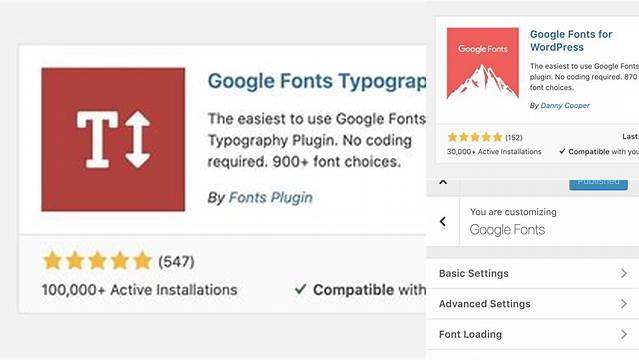
Best Google Fonts Plugin: Enhance Your Website Typography
Introduction to Google Fonts and Typography Plugins
In the world of web design, typography is a crucial element that significantly impacts the user experience. The fonts you choose can make or break the overall aesthetic and readability of your website. Google Fonts provides a vast library of free, open-source fonts that can be easily integrated into any website. To streamline this process, various Google Fonts typography plugins have been developed, making it simpler than ever to enhance your website's typography. Let's dive deeper into why typography matters and how these plugins can help.
Why Typography Matters
Typography is more than just picking a pretty font. It’s about conveying your message effectively and creating a visual hierarchy that guides your visitors through your content. Good typography can enhance readability, improve engagement, and reinforce your brand identity. Conversely, poor typography can lead to a frustrating user experience, causing visitors to leave your site quickly. Think of it this way: the right font can make your content feel professional, trustworthy, and inviting, while the wrong font can make it seem amateurish and difficult to read. For example, imagine reading a serious business proposal written in a playful, cartoonish font – it just wouldn’t convey the right message! That’s why understanding the principles of typography and utilizing tools like Google Fonts plugins are so essential.
Consider these key aspects of typography:
Readability: The primary goal of typography is to ensure that your text is easy to read. This involves choosing fonts that are clear and legible, as well as paying attention to factors like font size, line height, and letter spacing. A readable font ensures that visitors can comfortably consume your content without straining their eyes. Nobody wants to squint and struggle to read through a wall of text, right? Using a Google Fonts plugin can help you preview different fonts and see how they look on your site before committing to one.
Visual Hierarchy: Typography helps to create a visual hierarchy on your page, guiding the reader’s eye to the most important information. Different font sizes, weights, and styles can be used to distinguish headings, subheadings, and body text. This makes it easier for visitors to scan your content and quickly grasp the main points. Think of headlines as signposts that lead your readers through your article – you want them to be clear and attention-grabbing! Typography plugins for Google Fonts often offer features that allow you to easily manage font styles and sizes across your website.
Brand Identity: Your choice of fonts can significantly contribute to your brand identity. Consistent use of specific fonts across your website and marketing materials helps to create a cohesive and recognizable brand. Just like a logo, your fonts become associated with your brand in the minds of your audience. For instance, a modern, sans-serif font might convey a sense of innovation and technology, while a classic serif font might suggest tradition and reliability. Choosing the right fonts through a Google Fonts typography plugin can help you reinforce your brand's personality and values.
Engagement: Well-chosen typography can make your content more engaging and enjoyable to read. The right font can capture the tone and mood of your message, drawing readers in and keeping them interested. Think about how different fonts evoke different emotions – a script font might feel elegant and romantic, while a bold, sans-serif font might feel strong and confident. By selecting fonts that align with your content and brand, you can create a more compelling reading experience. Plugins for Google Fonts can even suggest font pairings that work well together, helping you to create a visually appealing and engaging design.
Benefits of Using Google Fonts
Google Fonts is a fantastic resource for web designers and developers, offering a wide range of benefits:
- Vast Library: Google Fonts boasts an extensive collection of fonts, with thousands of different styles to choose from. Whether you’re looking for a classic serif, a modern sans-serif, or a decorative script, you’re sure to find something that suits your needs. The sheer variety of options can be a bit overwhelming, but that’s where Google Fonts plugins come in handy – they often include features that allow you to filter and preview fonts, making it easier to find the perfect match for your project.
- Easy Integration: Google Fonts are designed to be easily integrated into any website. You can simply add a link to the Google Fonts stylesheet in your HTML code, or use a plugin that handles the integration for you. This simplicity makes it a breeze to experiment with different fonts and update your website’s typography. Plus, because Google Fonts are hosted on Google’s servers, they are delivered quickly and efficiently, ensuring that your website loads fast.
- Web Optimized: All fonts in the Google Fonts library are optimized for web use. This means they are designed to load quickly and display correctly on different devices and browsers. This is crucial for ensuring a smooth and consistent user experience. Slow-loading fonts can negatively impact your website’s performance and frustrate visitors. With Google Fonts, you can be confident that your fonts will look great and load quickly, no matter what device your visitors are using. And with the help of a Google Fonts plugin, you can even fine-tune font loading to further optimize your website’s speed.
What are Google Fonts Typography Plugins?
Google Fonts typography plugins are tools designed to simplify the process of using Google Fonts on your website. They offer a user-friendly interface that allows you to browse, select, and implement fonts without having to write any code. These plugins are particularly useful for those who are not comfortable with coding or who simply want to save time and effort. They take the hassle out of font management, allowing you to focus on other aspects of your website design.
These plugins act as a bridge between the Google Fonts library and your website, making it easy to access and use a wide range of fonts. Instead of manually adding code snippets to your website’s header, you can use a plugin to select your desired fonts and apply them to different elements of your site, such as headings, body text, and navigation menus. This can save you a significant amount of time and effort, especially if you plan to use multiple fonts across your website. Plus, many Google Fonts plugins offer additional features, such as font previews, style customization options, and performance optimization tools.
In essence, these plugins can be a game-changer for your website’s typography, making it easier than ever to create a visually appealing and engaging design. They empower you to experiment with different font combinations, fine-tune your typography, and ensure that your website looks its best on all devices. So, if you’re looking to elevate your website’s design and enhance the user experience, a Google Fonts typography plugin is definitely worth considering.
Key Features to Look for in a Google Fonts Plugin
When choosing a Google Fonts plugin, it’s essential to consider the features that will best meet your needs. Not all plugins are created equal, and some offer a more comprehensive set of tools than others. To help you make an informed decision, let’s explore some key features you should look for in a Google Fonts plugin:
1. Extensive Font Library Access:
The primary purpose of a Google Fonts plugin is to provide easy access to the Google Fonts library. Therefore, the plugin should offer a seamless way to browse and select from the thousands of fonts available. This includes features like font previews, search functionality, and categorization options. You want a plugin that allows you to quickly and easily find the perfect font for your project. Imagine trying to sift through thousands of fonts without proper filtering and preview options – it would be like searching for a needle in a haystack! A good plugin will make the process intuitive and efficient, allowing you to focus on the creative aspects of typography.
Look for plugins that offer:
- Real-time Font Previews: The ability to see how a font looks on your website before applying it. This is crucial for ensuring that the font complements your design and is readable in different contexts. Real-time previews allow you to experiment with different fonts and see the results instantly, without having to make permanent changes to your site. This can save you a lot of time and prevent potential design mishaps. With a Google Fonts plugin that offers real-time previews, you can be confident that you’re making the right choice for your typography.
- Advanced Search and Filtering: Features to filter fonts by categories (serif, sans-serif, display, handwriting, etc.), styles (bold, italic), and popularity. This helps you narrow down your options and find fonts that match your specific criteria. For example, if you’re looking for a modern, sans-serif font for your website’s headings, you can filter the font library accordingly. Advanced search and filtering options make it much easier to find the perfect font for your project, saving you time and effort. A Google Fonts plugin with these features will streamline your font selection process and help you create a visually cohesive design.
- Font Pairings: Suggestions for font combinations that work well together. This is especially helpful for those who are not typography experts. Choosing the right font pairings can be tricky, as some fonts simply don’t complement each other. A Google Fonts plugin that suggests font pairings can take the guesswork out of the process and help you create a harmonious and visually appealing design. These suggestions are often based on established typographic principles, ensuring that your font choices are both aesthetically pleasing and highly readable.
2. Customization Options:
A Google Fonts plugin should offer robust customization options to tailor the fonts to your specific needs. This includes adjusting font size, weight, style, and color. The ability to fine-tune these settings is essential for creating a visually appealing and consistent design across your website. After all, the perfect font is only perfect if it’s used correctly! Customization options allow you to make subtle adjustments that can have a big impact on the overall look and feel of your website.
Key customization features include:
- Font Weight and Style: The ability to choose from different font weights (e.g., light, regular, bold) and styles (e.g., italic, condensed). This allows you to create visual hierarchy and emphasize important elements on your page. For example, you might use a bold font weight for headings to make them stand out, while using a regular font weight for body text to ensure readability. A Google Fonts plugin that offers a wide range of font weights and styles gives you the flexibility to create a dynamic and engaging design.
- Font Size and Line Height: Options to adjust the font size and line height to optimize readability. The right font size and line height can make a significant difference in how easy it is to read your content. If the font is too small or the line height is too tight, your text can appear cramped and difficult to read. On the other hand, if the font is too large or the line height is too wide, your text can look disjointed and unprofessional. A Google Fonts plugin with adjustable font size and line height settings allows you to fine-tune the typography to create a comfortable reading experience for your visitors.
- Text Color and Letter Spacing: Controls to adjust the text color and letter spacing for optimal visual appeal. The color of your text can have a significant impact on the overall look and feel of your website. Choosing the right text color can make your content more readable and visually appealing. Similarly, adjusting the letter spacing can improve readability and create a more polished look. A Google Fonts plugin that offers these customization options gives you the tools you need to create a visually stunning and highly readable design.
3. Ease of Use:
The best Google Fonts plugins are those that are easy to use, even for beginners. The interface should be intuitive and straightforward, allowing you to quickly find and apply fonts without any hassle. Nobody wants to spend hours trying to figure out how to use a plugin! A user-friendly interface makes the process of selecting and customizing fonts a breeze, allowing you to focus on the creative aspects of your design.
Look for plugins with:
- Intuitive Interface: A clean and well-organized interface that is easy to navigate. The plugin should have clear labels and instructions, making it easy to understand how to use its various features. An intuitive interface can save you a lot of time and frustration, especially if you’re new to typography plugins. A Google Fonts plugin with a user-friendly interface will make the process of selecting and customizing fonts a pleasant experience.
- Drag-and-Drop Functionality: The ability to drag and drop fonts to different elements on your website. This makes it easy to apply fonts to specific areas of your site without having to write any code. Drag-and-drop functionality is a visual and intuitive way to customize your website’s typography. It allows you to see the changes in real-time and make adjustments as needed. A Google Fonts plugin with drag-and-drop functionality can significantly speed up your design workflow.
- Integration with Page Builders: Compatibility with popular page builders like Elementor, Beaver Builder, and Divi. This allows you to easily integrate Google Fonts into your existing workflow. Page builders are powerful tools that allow you to create custom website layouts without writing any code. A Google Fonts plugin that integrates seamlessly with your page builder will make it even easier to customize your website’s typography. This integration can save you a lot of time and effort, allowing you to create a professional-looking website with ease.
4. Performance Optimization:
Using too many fonts or improperly loading fonts can slow down your website. A good Google Fonts plugin should offer features to optimize font loading and ensure that your website remains fast and responsive. Website speed is crucial for user experience and SEO, so it’s essential to choose a plugin that prioritizes performance. Slow-loading fonts can frustrate visitors and negatively impact your search engine rankings. A Google Fonts plugin with performance optimization features can help you avoid these issues.
Key performance features include:
- Font Subsetting: The ability to load only the character sets needed for your website’s language. This reduces the file size of the font and speeds up loading times. Font files can be quite large, especially for fonts with multiple styles and weights. Loading only the necessary character sets can significantly reduce the file size and improve your website’s performance. A Google Fonts plugin with font subsetting capabilities can help you optimize your typography without sacrificing website speed.
- Asynchronous Loading: Loading fonts in the background so they don’t block the rendering of other content. This ensures that your website loads quickly, even if the fonts take a little longer to load. Asynchronous loading prevents fonts from becoming a bottleneck in your website’s loading process. This means that your visitors will be able to see and interact with your content more quickly, even if the fonts are still loading in the background. A Google Fonts plugin with asynchronous loading can improve your website’s perceived performance and enhance the user experience.
- Font Caching: Storing fonts locally so they don’t have to be downloaded every time a page is loaded. This further improves loading times and reduces server load. Caching is a common technique for improving website performance. By storing fonts locally, you can reduce the number of requests to the Google Fonts server and speed up your website’s loading time. A Google Fonts plugin with font caching capabilities can help you ensure that your website loads quickly and efficiently, even for visitors who are accessing it for the first time.
By considering these key features, you can choose a Google Fonts plugin that meets your needs and helps you create a visually stunning and highly readable website. Remember, the right plugin can make a big difference in your website’s overall design and user experience. So, take the time to research your options and choose a plugin that offers the features and functionality you need to succeed.
Top Google Fonts Plugins for WordPress
WordPress, being the most popular content management system (CMS), has a plethora of Google Fonts plugins available. These plugins cater to different needs and preferences, offering a range of features and functionalities. To help you navigate this vast landscape, let’s take a look at some of the top Google Fonts plugins for WordPress:
1. Easy Google Fonts:
Easy Google Fonts is one of the most popular and user-friendly Google Fonts plugins available for WordPress. It boasts over 700,000 active installations and a 4.5-star rating, making it a trusted choice for many website owners. This plugin simplifies the process of adding and customizing Google Fonts on your WordPress site, even if you don’t have any coding experience. Its intuitive interface and robust feature set make it a great option for both beginners and experienced users.
Key Features:
- Seamless Integration: Easy Google Fonts seamlessly integrates with the WordPress Customizer, allowing you to preview font changes in real-time. This makes it incredibly easy to experiment with different fonts and see how they look on your website before making them live. The Customizer integration also ensures that the plugin works well with most WordPress themes.
- Font Control: The plugin gives you complete control over your website’s typography, allowing you to assign fonts to different elements such as headings, body text, and menus. This makes it easy to create a consistent and visually appealing design across your entire website. You can also adjust font sizes, weights, and styles to further customize your typography.
- Automatic Google Fonts Updates: Easy Google Fonts automatically updates the Google Fonts library, ensuring that you always have access to the latest fonts. This is a convenient feature that saves you the hassle of manually updating the font library yourself. You can be confident that you’re using the most up-to-date fonts and taking advantage of any new additions to the Google Fonts collection.
- Theme Compatibility: The plugin is designed to be compatible with most WordPress themes, ensuring a smooth and hassle-free experience. However, it’s always a good idea to test the plugin with your specific theme to ensure that everything works as expected. In most cases, Easy Google Fonts will work seamlessly with your theme, allowing you to easily customize your website’s typography.
Why Choose Easy Google Fonts?
Easy Google Fonts is an excellent choice for those who want a simple and straightforward way to add Google Fonts to their WordPress website. Its user-friendly interface, real-time previews, and automatic updates make it a convenient and reliable option. If you’re looking for a plugin that’s easy to use and offers a comprehensive set of features, Easy Google Fonts is definitely worth considering.
2. Google Fonts Typography:
Google Fonts Typography is another popular Google Fonts plugin for WordPress, known for its extensive customization options and focus on performance. With over 200,000 active installations and a 4-star rating, this plugin has earned a reputation for being a powerful and versatile tool. It offers a wide range of features that allow you to fine-tune your website’s typography and optimize it for performance.
Key Features:
- Advanced Font Controls: Google Fonts Typography offers advanced font controls, allowing you to customize font size, weight, style, letter spacing, line height, and more. This level of customization gives you complete control over your website’s typography and allows you to create a truly unique design. You can adjust every aspect of your fonts to perfectly match your brand and aesthetic.
- Font Subsetting: The plugin supports font subsetting, which allows you to load only the character sets needed for your website’s language. This reduces the file size of the font and speeds up loading times. Font subsetting is a crucial feature for optimizing website performance, especially if you’re using fonts with a large character set.
- Performance Optimization: Google Fonts Typography is designed with performance in mind, offering features like asynchronous font loading and caching to ensure that your website loads quickly. These features help to prevent fonts from becoming a bottleneck in your website’s loading process, ensuring a smooth user experience.
- Developer-Friendly: The plugin is developer-friendly, with hooks and filters that allow you to customize its functionality. This makes it a great option for developers who want to extend the plugin’s features or integrate it with other plugins and themes. If you’re a developer, you’ll appreciate the flexibility and extensibility of Google Fonts Typography.
Why Choose Google Fonts Typography?
Google Fonts Typography is a great choice for those who want a powerful and versatile Google Fonts plugin with advanced customization options and a focus on performance. If you’re looking for a plugin that gives you complete control over your website’s typography and helps you optimize it for speed, Google Fonts Typography is an excellent option.
3. Fonts Plugin | Google Fonts, Custom Fonts, Typography:
The Fonts Plugin | Google Fonts, Custom Fonts, Typography by StylemixThemes is a comprehensive typography solution for WordPress. This plugin goes beyond just Google Fonts, allowing you to upload custom fonts and manage your entire font library in one place. With over 80,000 active installations and a 4.5-star rating, this plugin is a popular choice for those who need a flexible and feature-rich typography solution.
Key Features:
- Google Fonts Integration: The plugin provides seamless integration with the Google Fonts library, allowing you to easily browse and select from thousands of fonts.
- Custom Font Uploads: You can upload your own custom fonts in various formats (TTF, WOFF, WOFF2) and use them on your website. This is a great feature for those who want to use unique fonts that are not available in the Google Fonts library.
- Font Management: The plugin offers a centralized font management system, allowing you to organize and manage all of your fonts in one place. This makes it easy to keep track of your fonts and ensure that they are used consistently across your website.
- Typography Controls: The plugin provides extensive typography controls, allowing you to customize font size, weight, style, color, letter spacing, line height, and more.
- Elementor Integration: The plugin seamlessly integrates with the Elementor page builder, allowing you to easily apply fonts to different elements on your page. This integration makes it easy to create custom designs with your favorite fonts.
Why Choose Fonts Plugin | Google Fonts, Custom Fonts, Typography?
This plugin is an excellent choice for those who need a comprehensive typography solution that goes beyond just Google Fonts. If you want to use custom fonts, manage your entire font library in one place, and have extensive typography controls, this plugin is a great option. Its Elementor integration makes it particularly appealing for those who use the Elementor page builder.
4. Use Any Font:
Use Any Font is a unique Google Fonts plugin that focuses on allowing you to use any font you want on your website, regardless of its source. This plugin is particularly useful if you have fonts that are not available in the Google Fonts library or if you want to use custom fonts from other sources. With over 100,000 active installations and a 4-star rating, this plugin has proven to be a reliable and effective solution for using custom fonts on WordPress.
Key Features:
- Custom Font Uploads: Use Any Font allows you to upload custom fonts in various formats (TTF, OTF, WOFF) and use them on your website. This gives you the flexibility to use any font you want, regardless of its source.
- Font Conversion: The plugin automatically converts your fonts to web-friendly formats, ensuring that they display correctly on all browsers and devices. This is a crucial feature for ensuring a consistent user experience across different platforms.
- Simple Interface: Use Any Font has a simple and intuitive interface, making it easy to upload and manage your custom fonts. Even if you’re not a technical expert, you’ll be able to use this plugin with ease.
- Performance Optimized: The plugin is designed to be performance-optimized, ensuring that your custom fonts load quickly and don’t slow down your website. This is essential for maintaining a fast and responsive website.
Why Choose Use Any Font?
Use Any Font is a great choice for those who want to use custom fonts on their WordPress website. If you have fonts that are not available in the Google Fonts library or if you simply prefer to use custom fonts, this plugin is an excellent option. Its simple interface, automatic font conversion, and performance optimization make it a reliable and effective solution.
Choosing the right Google Fonts plugin for your WordPress website depends on your specific needs and preferences. Consider the features that are most important to you, such as ease of use, customization options, performance optimization, and integration with other plugins and themes. By carefully evaluating your options, you can find the perfect plugin to help you create a visually stunning and highly readable website.
How to Implement Google Fonts Using a Plugin
Implementing Google Fonts using a plugin is a straightforward process that can significantly enhance your website's typography without requiring any coding knowledge. Let's walk through the steps involved in using a Google Fonts plugin to elevate your website's design.
Step 1: Install and Activate a Google Fonts Plugin
The first step is to choose a Google Fonts plugin that suits your needs and install it on your WordPress website. As we discussed earlier, there are several excellent options available, such as Easy Google Fonts, Google Fonts Typography, Fonts Plugin | Google Fonts, Custom Fonts, Typography, and Use Any Font. For this example, we'll use Easy Google Fonts due to its user-friendly interface and seamless integration with the WordPress Customizer.
- Navigate to the Plugins Section: In your WordPress dashboard, go to "Plugins" and click on "Add New". This will take you to the WordPress Plugin Directory, where you can search for and install new plugins.
- Search for the Plugin: In the search bar, type "Easy Google Fonts" and press Enter. The plugin should appear in the search results. Make sure it's the one by Titanium Themes.
- Install the Plugin: Click the "Install Now" button next to the Easy Google Fonts plugin. WordPress will download and install the plugin on your website. This process usually takes just a few seconds.
- Activate the Plugin: Once the plugin is installed, the "Install Now" button will change to an "Activate" button. Click the "Activate" button to activate the plugin. Activating the plugin makes it available for use on your website. A successful activation will usually redirect you to the plugins page where you can see the plugin listed as active.
Step 2: Access the WordPress Customizer
The next step is to access the WordPress Customizer, which is where you'll configure the plugin and apply your chosen Google Fonts to your website.
- Go to Appearance: In your WordPress dashboard, hover over "Appearance" in the left-hand menu. This will reveal a submenu.
- Click on Customize: In the submenu, click on "Customize". This will open the WordPress Customizer, which allows you to make changes to your website's appearance in real-time. The WordPress Customizer is a powerful tool that allows you to preview changes to your website before making them live. This is especially useful when working with typography, as you can see how different fonts look on your site before committing to a particular style.
Step 3: Configure the Plugin Settings
Once you're in the WordPress Customizer, you'll need to find the settings for the Google Fonts plugin you've installed. In the case of Easy Google Fonts, the settings are typically located in the "Typography" section of the Customizer.
- Locate the Typography Section: In the WordPress Customizer, look for a section labeled "Typography" or something similar. The exact label may vary depending on your theme, but it’s usually easy to spot.
- Access the Plugin Settings: Click on the "Typography" section to access the Easy Google Fonts settings. Here, you'll find options to control the fonts for different elements on your website, such as headings, body text, and menus.
Inside the plugin settings, you'll typically see a list of elements that you can customize, along with dropdown menus to select fonts. This is where you'll choose the Google Fonts you want to use on your website. The intuitive interface of Easy Google Fonts makes this process straightforward and enjoyable.
Step 4: Choose Your Google Fonts
Now comes the fun part: selecting the perfect Google Fonts for your website. Easy Google Fonts provides a user-friendly interface for browsing and previewing fonts, making it easy to find the right styles for your brand and content.
- Select an Element to Customize: In the plugin settings, choose the element you want to customize, such as "Headings" or "Body Text". Each element will have its own set of font options.
- Choose a Font Family: Use the dropdown menu to select a font family from the Google Fonts library. As you scroll through the list, you'll see real-time previews of how each font looks on your website. This allows you to experiment with different styles and see the results instantly.
- Adjust Font Styles: Once you've chosen a font family, you can adjust the font style, weight, and other settings. This gives you fine-grained control over your website's typography. For example, you might choose a bold weight for headings to make them stand out.
- Repeat for Other Elements: Repeat these steps for other elements on your website, such as body text, menus, and buttons. This will help you create a consistent and visually appealing design across your entire site.
As you choose fonts, keep in mind the principles of good typography, such as readability and visual hierarchy. Select fonts that are easy to read and that complement your brand's personality. Don't be afraid to experiment, but always prioritize clarity and user experience.
Step 5: Customize Font Styles and Sizes
Selecting the right Google Fonts is just the first step. To truly elevate your website's typography, you'll need to customize font styles and sizes to create a visual hierarchy and ensure readability.
- Adjust Font Sizes: Use the plugin settings to adjust the font sizes for different elements on your website. Headings should typically be larger than body text, and subheadings should be smaller than main headings. This creates a clear visual hierarchy that guides the reader through your content.
- Set Font Weights: Choose appropriate font weights for different elements. Bold weights can be used to emphasize headings and keywords, while lighter weights are often better for body text. Experiment with different weights to find the right balance between visual impact and readability.
- Control Line Height and Letter Spacing: Adjust the line height and letter spacing to improve readability. A comfortable line height makes it easier for readers to follow the text, while appropriate letter spacing prevents letters from crowding together. These subtle adjustments can make a big difference in the overall reading experience.
- Choose Text Colors: Select text colors that complement your website's design and ensure readability. Dark text on a light background is generally the easiest to read, but you can also experiment with other color combinations to create a unique look.
By carefully customizing font styles and sizes, you can create a visually appealing and highly readable website. Remember to preview your changes on different devices to ensure that your typography looks great on all screens.
Step 6: Preview and Publish Your Changes
Before making your changes live, it's essential to preview them to ensure that everything looks the way you want it to. The WordPress Customizer makes this easy by providing a real-time preview of your website.
- Preview Your Website: In the WordPress Customizer, take a close look at your website to see how the new fonts look. Pay attention to readability, visual hierarchy, and overall design.
- Check on Different Devices: Use the device preview options in the Customizer to see how your website looks on different screen sizes, such as desktops, tablets, and smartphones. This will help you ensure that your typography is responsive and looks great on all devices.
- Make Adjustments if Needed: If you notice any issues, go back to the plugin settings and make adjustments as needed. Don't hesitate to experiment until you're satisfied with the results.
- Publish Your Changes: Once you're happy with your website's typography, click the "Publish" button in the WordPress Customizer. This will make your changes live, and your website will now use the Google Fonts you've chosen.
Congratulations! You've successfully implemented Google Fonts using a plugin. Your website now has a fresh new look that will enhance its visual appeal and readability. By following these steps, you can easily customize your website's typography and create a design that reflects your brand and engages your audience.
Best Practices for Using Google Fonts
Using Google Fonts can significantly enhance your website’s typography, but it’s important to follow best practices to ensure optimal performance and readability. Choosing the right fonts and implementing them correctly can make a big difference in the overall user experience. Let's explore some key best practices for using Google Fonts effectively.
1. Choose Fonts That Complement Your Brand
Your choice of fonts should align with your brand’s personality and values. Consider the tone and message you want to convey, and select fonts that reflect that. A modern, tech-focused brand might opt for a clean sans-serif font, while a more traditional brand might prefer a classic serif font. The fonts you use should be consistent with your brand’s visual identity, helping to create a cohesive and recognizable look.
- Understand Your Brand: Before choosing fonts, take the time to define your brand’s personality and values. Are you modern and innovative, or classic and reliable? Your fonts should reflect these characteristics.
- Consider Your Target Audience: Think about your target audience and what types of fonts they are likely to respond to. A younger audience might appreciate more playful and unconventional fonts, while a professional audience might prefer more conservative options.
- Create a Font Palette: Choose a small set of fonts (typically 2-3) that work well together and use them consistently across your website. This will help to create a cohesive and professional look.
2. Prioritize Readability
Readability is the most important factor to consider when choosing Google Fonts. If your text is difficult to read, visitors are likely to leave your website. Select fonts that are clear and legible, even at smaller sizes. Pay attention to factors like font size, line height, and letter spacing to ensure a comfortable reading experience. Remember, the goal is to make your content as accessible as possible.
- Choose Legible Fonts: Opt for fonts that are designed for readability, with clear letterforms and ample spacing. Avoid overly decorative or stylized fonts, especially for body text.
- Use Appropriate Font Sizes: Make sure your font sizes are large enough to be easily read on different devices. A good rule of thumb is to use a minimum font size of 16px for body text.
- Adjust Line Height: Set the line height to a comfortable value (typically 1.5-2 times the font size). This will make the text easier to read by providing enough space between lines.
3. Limit the Number of Fonts
Using too many fonts on your website can create a cluttered and unprofessional look. It’s best to stick to a small number of fonts (typically 2-3) and use them consistently across your site. This will help to create a cohesive visual identity and make your website easier to navigate. Each font you add to your website increases loading time and the potential for visual clutter. A streamlined approach to font selection ensures a cleaner, faster, and more professional look.
- Create a Hierarchy: Use different fonts for headings and body text to create a visual hierarchy. This will help to guide the reader’s eye and make your content more engaging.
- Use Font Weights and Styles: Instead of using multiple fonts, try using different weights and styles (e.g., bold, italic) of the same font. This can help to create visual variety without adding complexity.
- Be Consistent: Once you’ve chosen your fonts, use them consistently across your website. This will help to create a cohesive brand identity.
4. Optimize Font Loading for Performance
Google Fonts can improve your website’s design, but they can also impact its performance if not implemented correctly. Slow-loading fonts can frustrate visitors and negatively affect your search engine rankings. Optimize font loading by using font subsetting, asynchronous loading, and font caching.
- Use Font Subsetting: Load only the character sets needed for your website’s language. This will reduce the file size of the font and speed up loading times. Many Google Fonts plugins offer font subsetting options.
- Load Fonts Asynchronously: Load fonts in the background so they don’t block the rendering of other content. This will ensure that your website loads quickly, even if the fonts take a little longer to load.
- Use Font Caching: Store fonts locally so they don’t have to be downloaded every time a page is loaded. This will further improve loading times and reduce server load. Many Google Fonts plugins offer font caching features.
5. Test Your Fonts on Different Devices and Browsers
It’s essential to test your fonts on different devices and browsers to ensure that they display correctly. Fonts can render differently depending on the operating system, browser, and screen resolution. Testing your fonts will help you identify any compatibility issues and ensure a consistent user experience for all visitors.
- Use Browser Developer Tools: Use browser developer tools to inspect the fonts and ensure that they are loading correctly.
- Test on Different Devices: Check your website on different devices, such as desktops, tablets, and smartphones, to ensure that the fonts look good on all screens.
- Use Online Testing Tools: There are several online tools that can help you test your website’s typography on different browsers and devices.
6. Use Font Pairing Wisely
Font pairing is the art of combining fonts that work well together. A good font pairing can enhance your website’s visual appeal and create a more engaging reading experience. However, a bad font pairing can be jarring and difficult to read. Choose fonts that complement each other in terms of style, weight, and personality. When pairing fonts, aim for contrast but also harmony. A common practice is to pair a serif font for headings with a sans-serif font for body text, or vice versa. This creates visual interest while maintaining readability. Many Google Fonts plugins offer suggestions for font pairings, which can be a valuable resource if you’re unsure where to start. Remember, the goal is to create a cohesive and visually pleasing design that enhances your content.
- Consider Contrast: Pair fonts that have enough contrast to create visual interest, but not so much that they clash.
- Use Font Pairing Tools: Use online font pairing tools or consult with a designer to find fonts that work well together.
- Limit Font Combinations: Stick to a maximum of two or three fonts on your website to avoid creating a cluttered look.
By following these best practices, you can use Google Fonts to create a visually stunning and highly readable website that engages your audience and enhances your brand. Remember, typography is a crucial element of web design, and choosing the right fonts and implementing them correctly can make a big difference in your website’s overall success.
In conclusion, Google Fonts typography plugins are invaluable tools for enhancing your website's design and user experience. They provide easy access to a vast library of free, high-quality fonts, allowing you to create visually appealing and engaging content. By choosing the right plugin and following best practices for font selection and implementation, you can significantly improve your website's typography and overall aesthetic.
Remember to consider key features like font library access, customization options, ease of use, and performance optimization when selecting a plugin. Popular options like Easy Google Fonts, Google Fonts Typography, Fonts Plugin | Google Fonts, Custom Fonts, Typography, and Use Any Font offer a range of functionalities to suit different needs and preferences. Implementing Google Fonts using a plugin is a straightforward process that can be done in just a few steps, even if you don't have any coding experience.
By prioritizing readability, limiting the number of fonts, optimizing font loading, and testing your fonts on different devices and browsers, you can ensure that your website's typography is both visually appealing and user-friendly. Google Fonts can be a powerful tool for branding and visual communication, but it's important to use them wisely. Experiment with different font pairings, font sizes, and font styles to find the perfect combination for your website.
Ultimately, the goal is to create a website that is both beautiful and functional. Google Fonts typography plugins can help you achieve this goal by making it easier than ever to access and implement high-quality fonts. So, take the time to explore the options available and find the plugin that best suits your needs. With the right tools and knowledge, you can create a website that truly stands out and engages your audience.